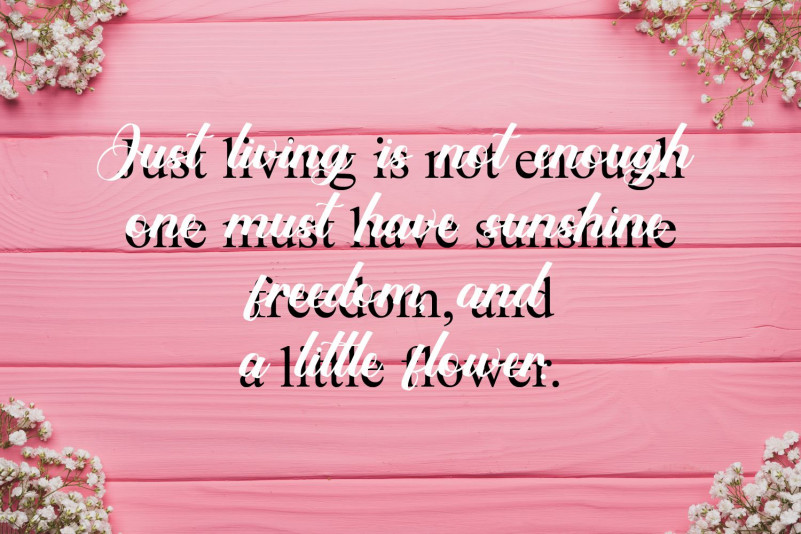
Melaty Font
Melaty Script Font
This is a cursive and beautiful script font. It looks lovely on a variety of designs requiring a personalized style, such as wedding invitations, thank you cards, weddings, greeting cards, logos and so on.